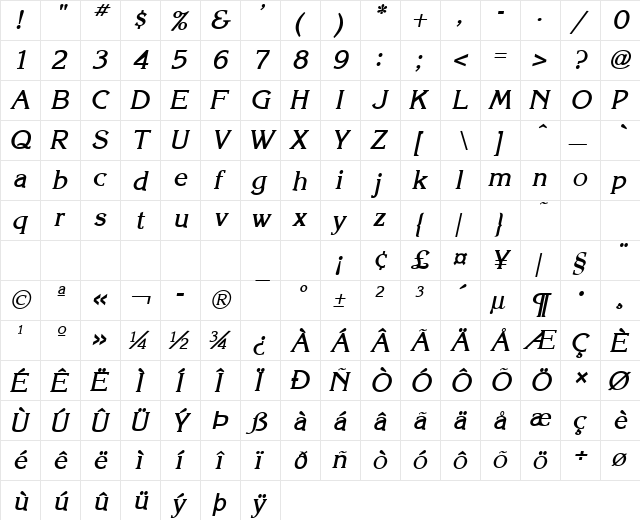
Keira Bold Italic
Design Context for Keira Typeface
Keira takes a measured approach to typography — its balanced proportions and neutral character make it a reliable workhorse for both digital and print work. The slanted form adds forward momentum and visual energy. The heavy weight commands attention and anchors typographic hierarchies.
Pro Tip: Use Keira for emphasis, pull quotes, and subheadings where its slanted energy can add rhythm to the layout.